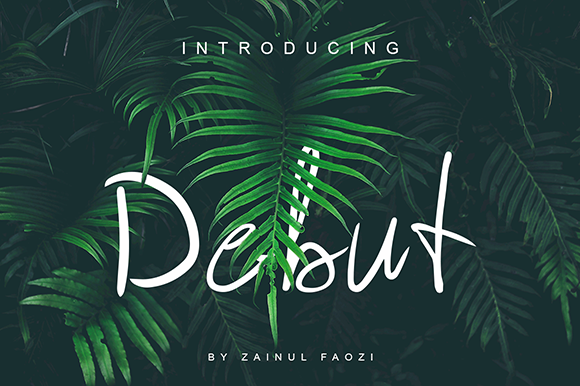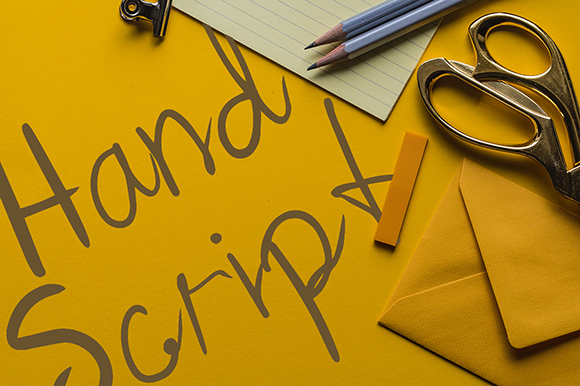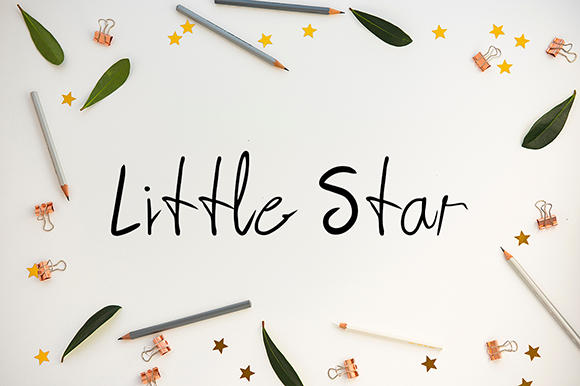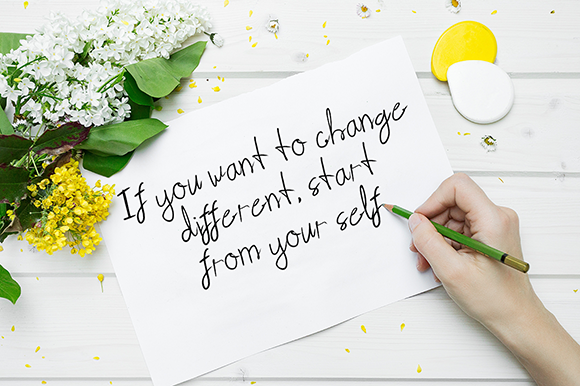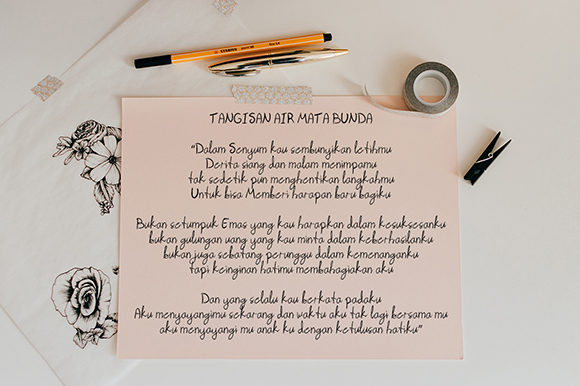
Debut Font
About Debut Font
Debut is a cool and casual handwritten font with an elegant feel. Simple, yet charmin, it will turn any creative project into a piece of art.